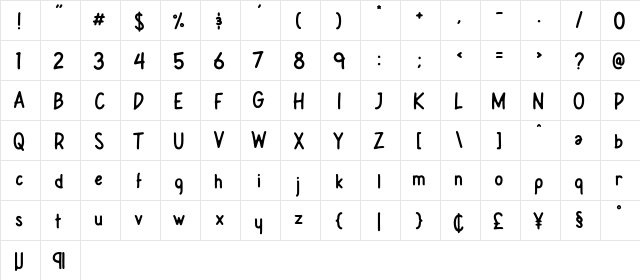
Leafy Plant Sans Free Regular
| Foundry | WNDR Supply by Pratama |
| Designer | Pratama Yudha |
Design Context for Leafy Plant Sans Free Typeface
Leafy Plant Sans Free offers clean, dependable letterforms without strong stylistic allegiance, making it a practical choice for designers who need flexibility.